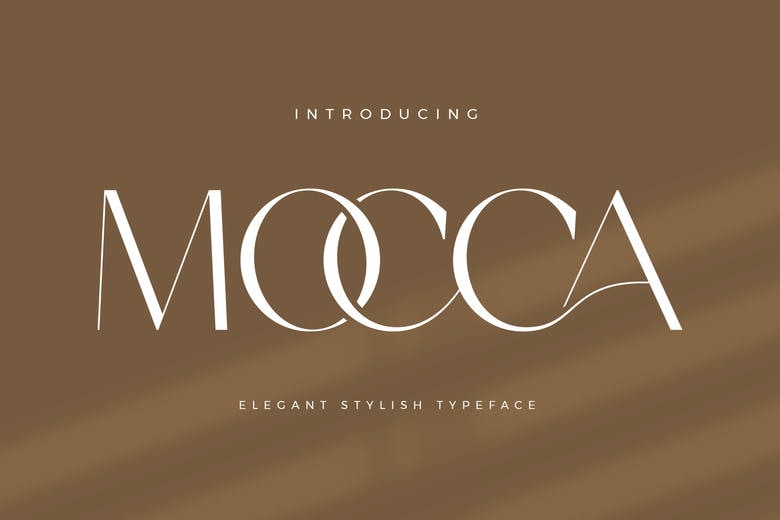
Mocca Font
Mocca Sans Font That Looks Like The Iconic Minimalist Logo Pike Perfect For The Designing Purpose Of The Template, Brochure, Video, Advertisement Branding Logo, Invite, Layout Designing, Elements Of Beauty Work And More.
Mocca Sans Serif Font